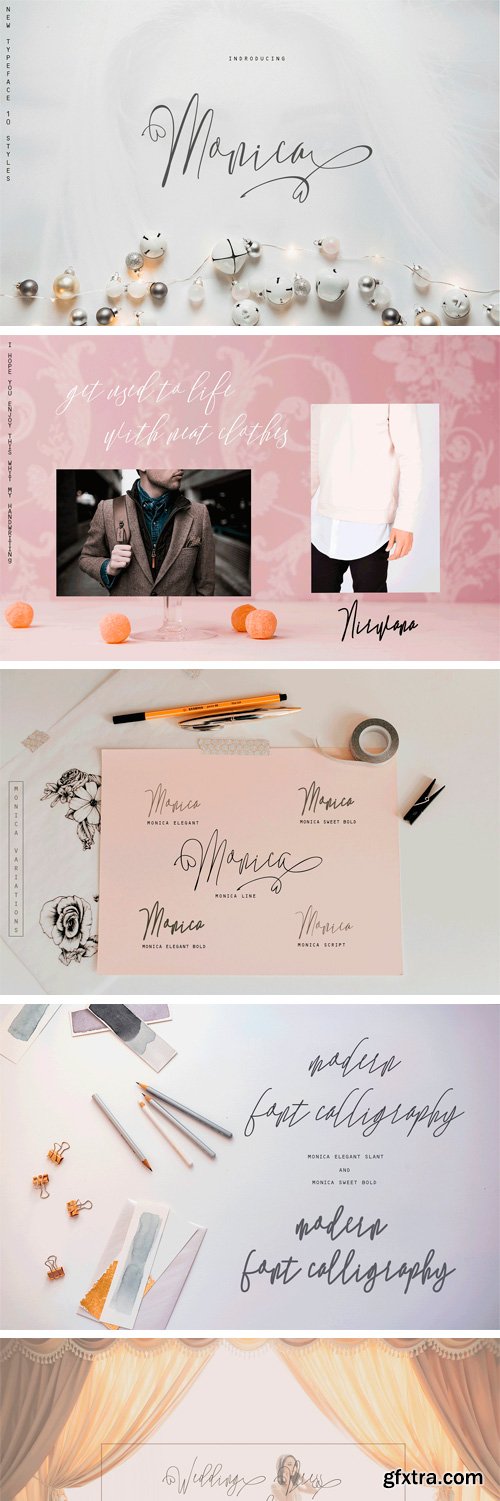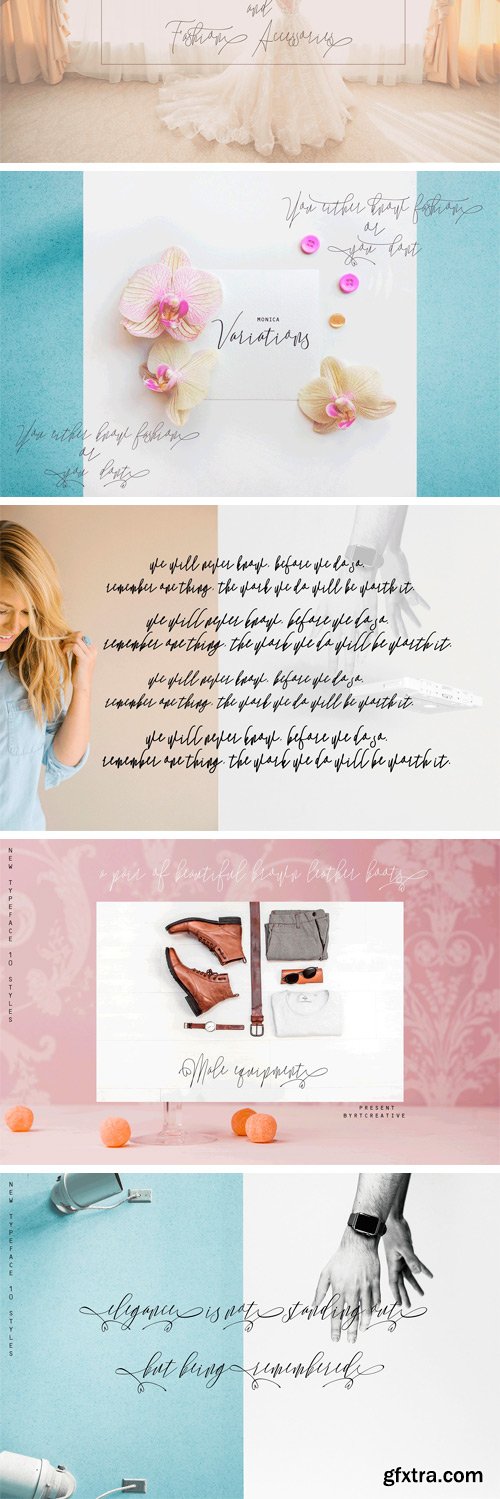
Monica, a work that is purely handwritten, has natural characteristics. It's perfect for invitations, signatures, blogs, social media, business cards, product brands. Monica is a simple font, comes with 10 Elegant Variations, has Stylistic standards, Stylistic Alternates. and includes uppercase and lowercase letters, numbers and punctuation.